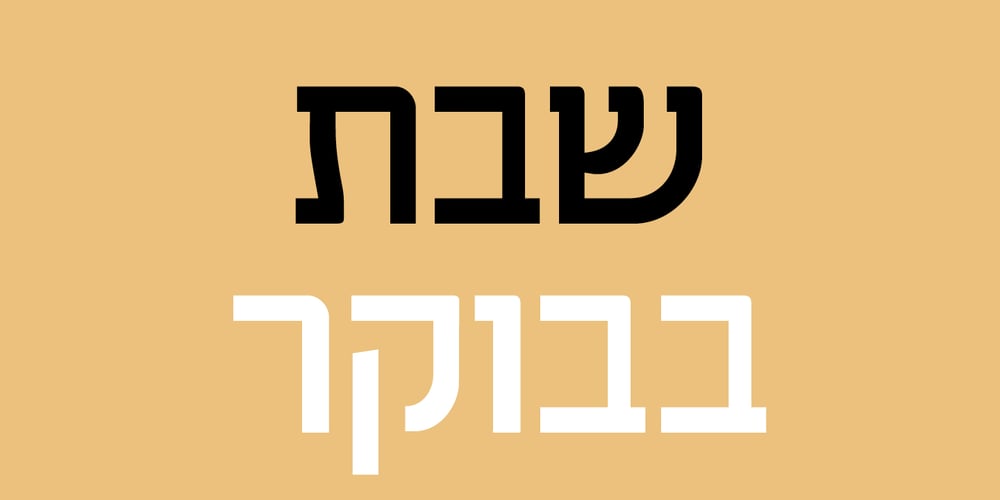
Traklin MF
Traklin MF font
Traklin MF Font Family was designed by Zvika Rosenberg and published by Masterfont. Traklin MF contains 4 styles and family package options. Great sans text font family for all your needs, text, signage, logos etc. Very elegant and suitable for classic as well as formal design.